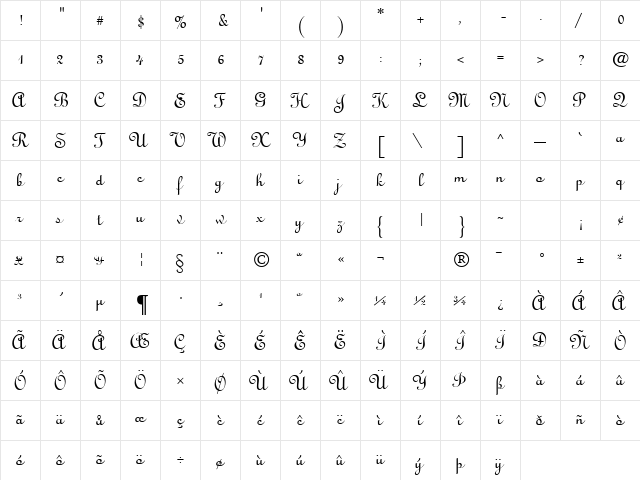
GE Mona Lisa Script Normal
Design Context for GE Mona Lisa Script Typeface
GE Mona Lisa Script flows with the natural rhythm of handwritten lettering, making it ideal for designs that call for warmth and personal expression.
Font Pairing: Combine GE Mona Lisa Script with a simple geometric sans for maximum contrast — the tension between flowing curves and clean structure is a classic typographic pairing.
Pro Tip: Pair GE Mona Lisa Script with a clean sans-serif for supporting text. The contrast between fluid script and geometric structure creates an elegant typographic hierarchy.